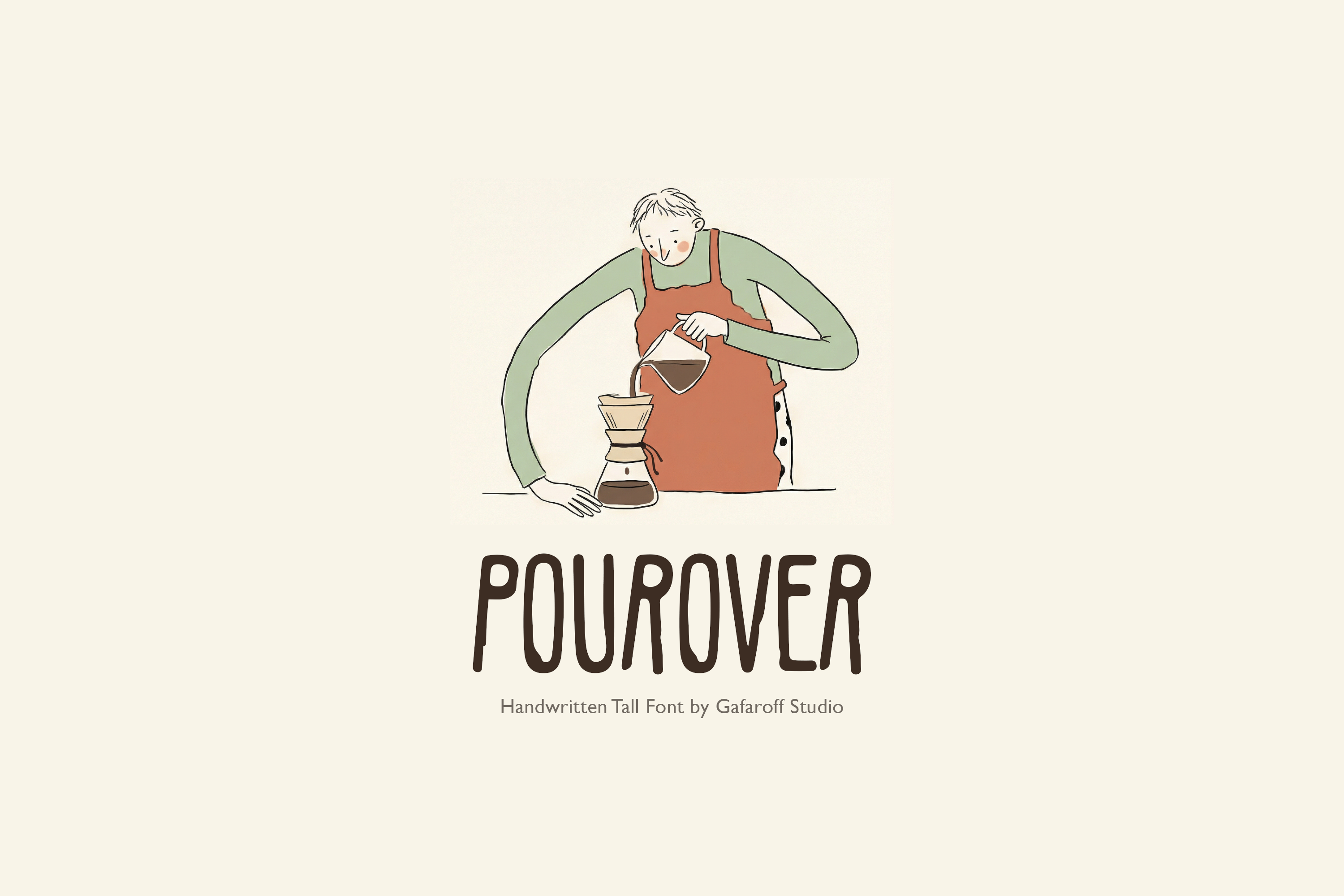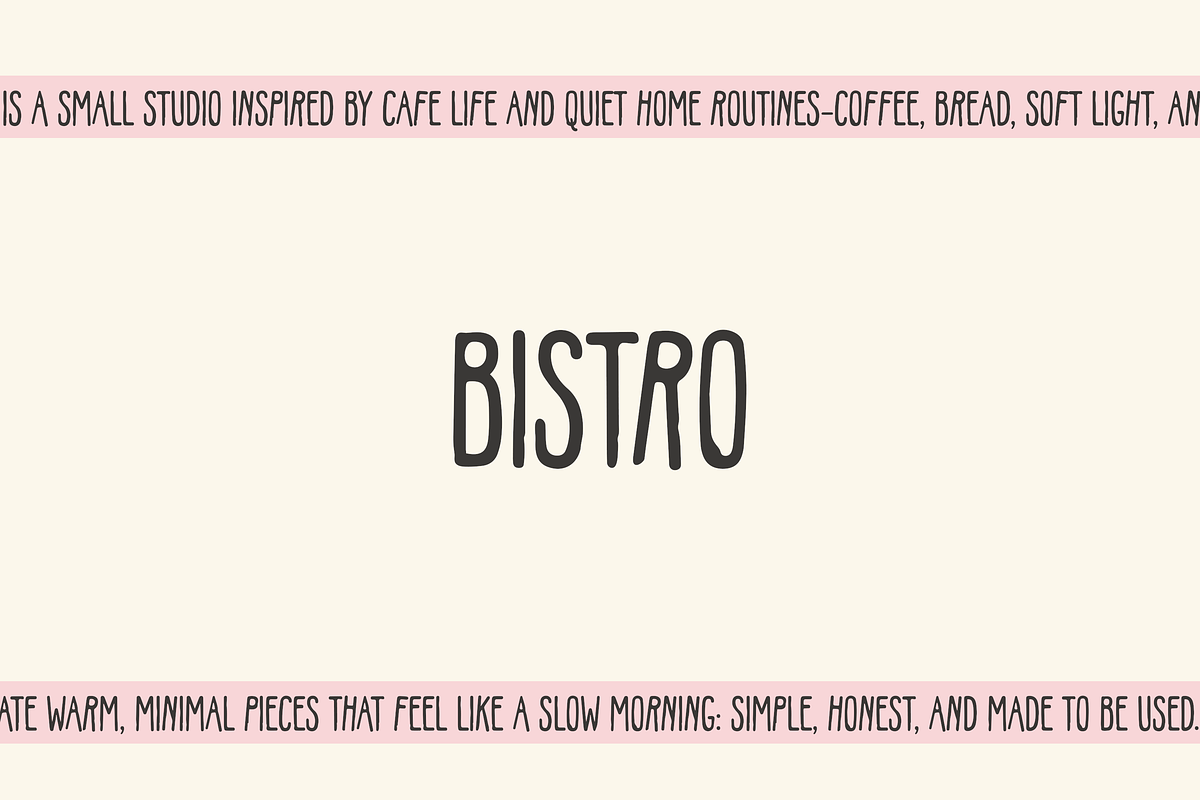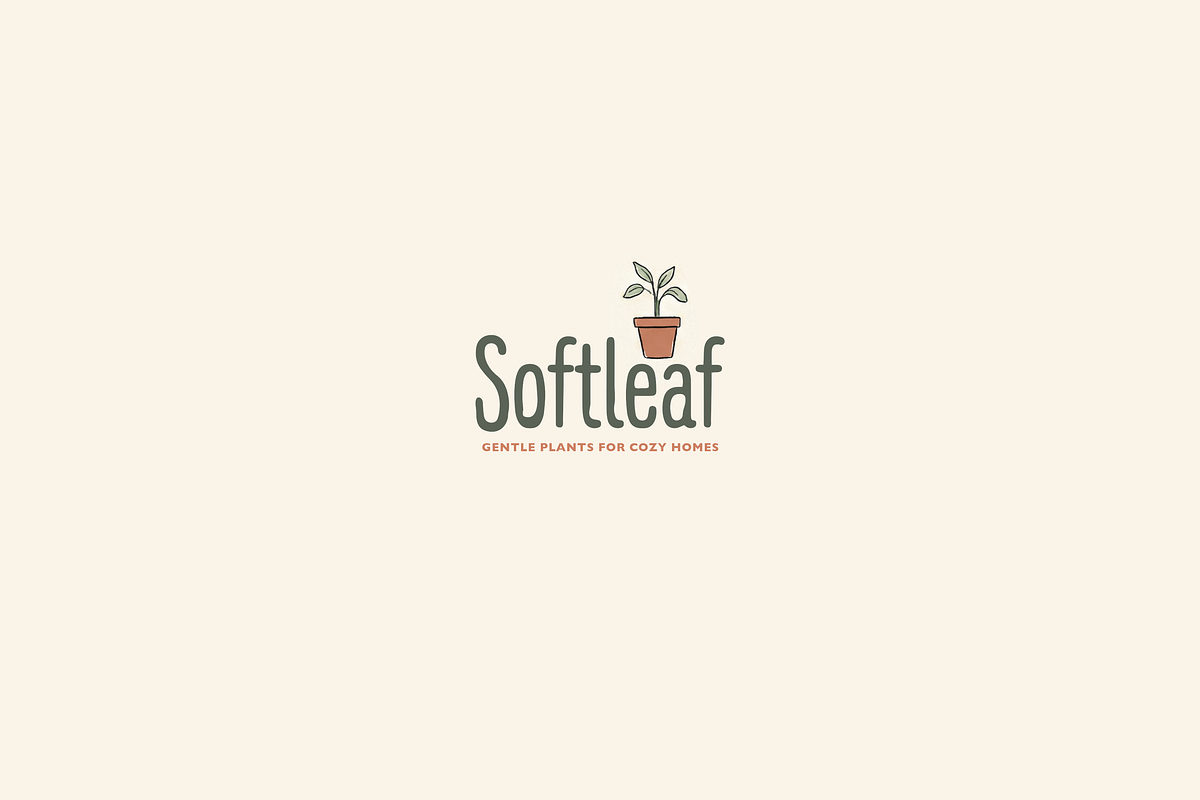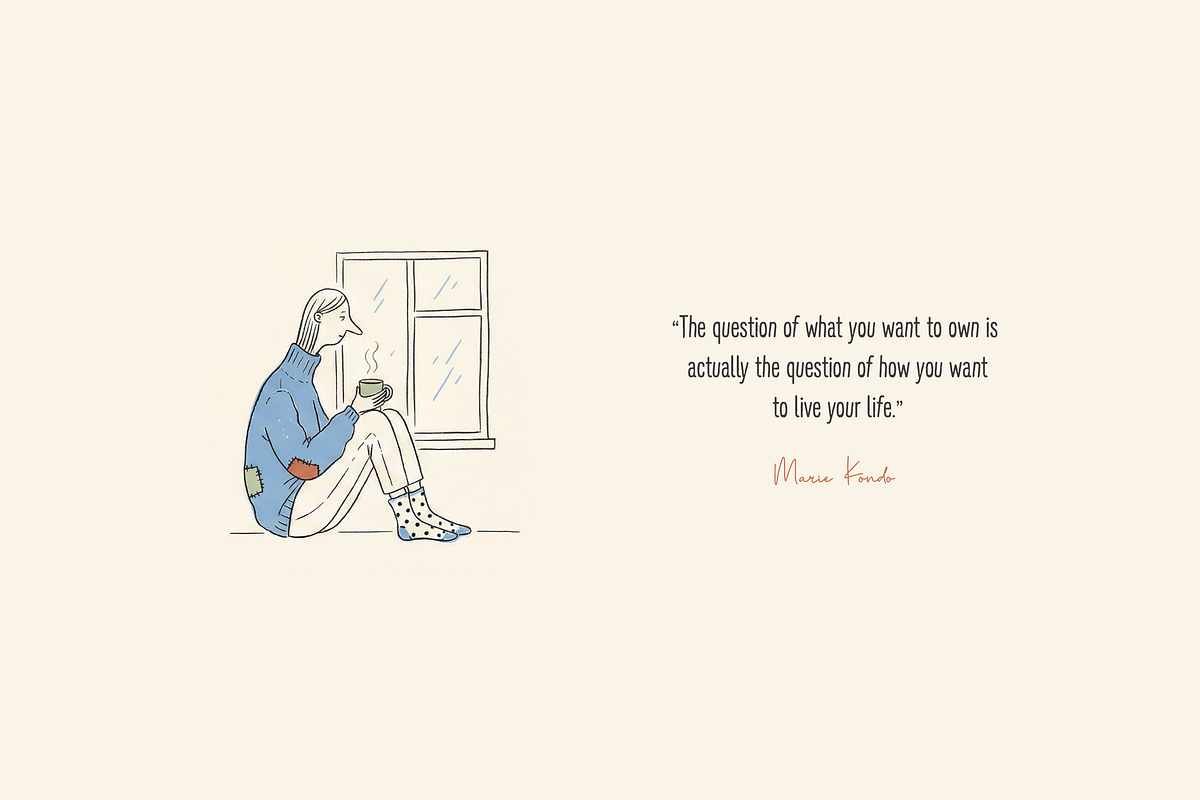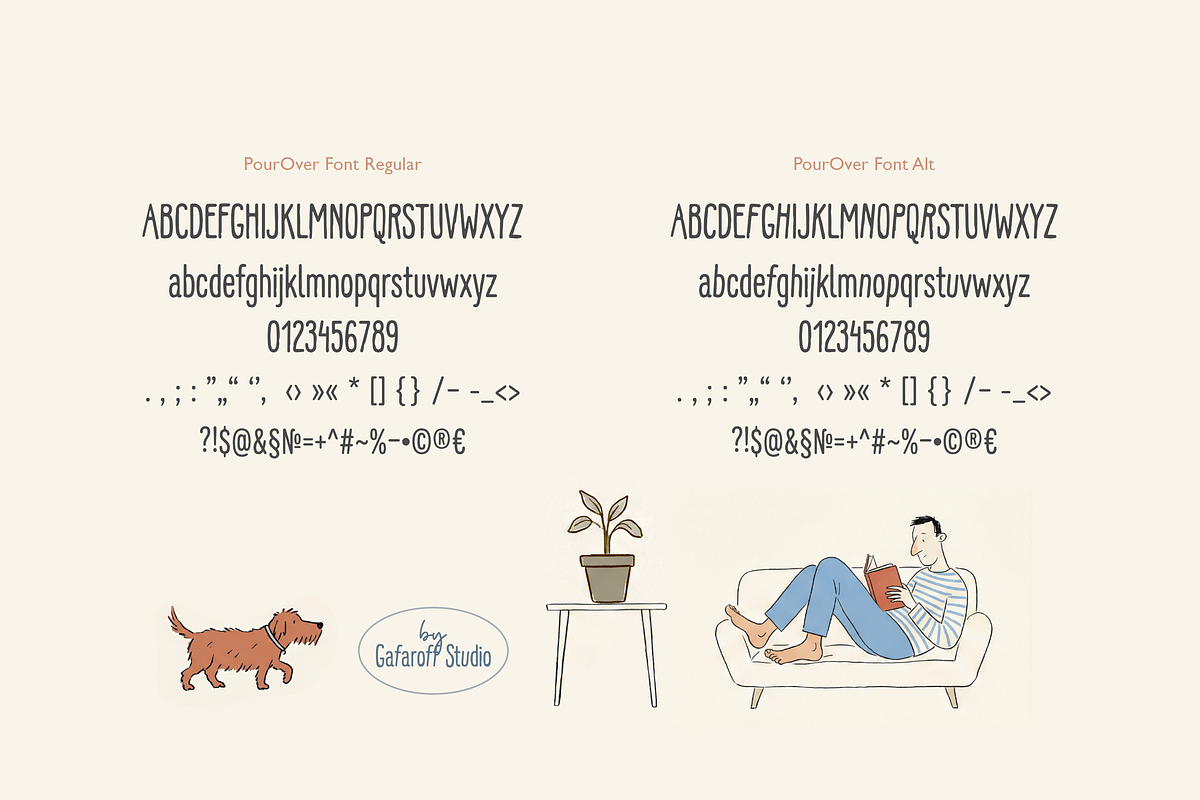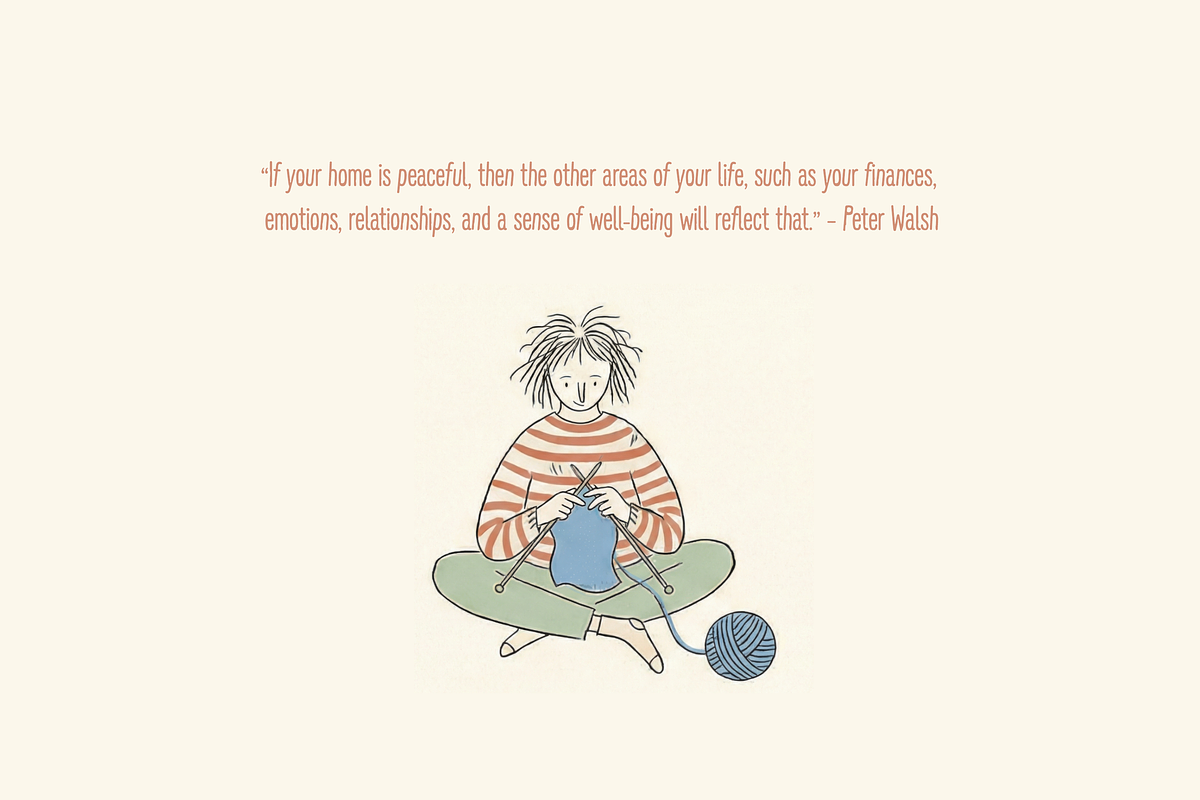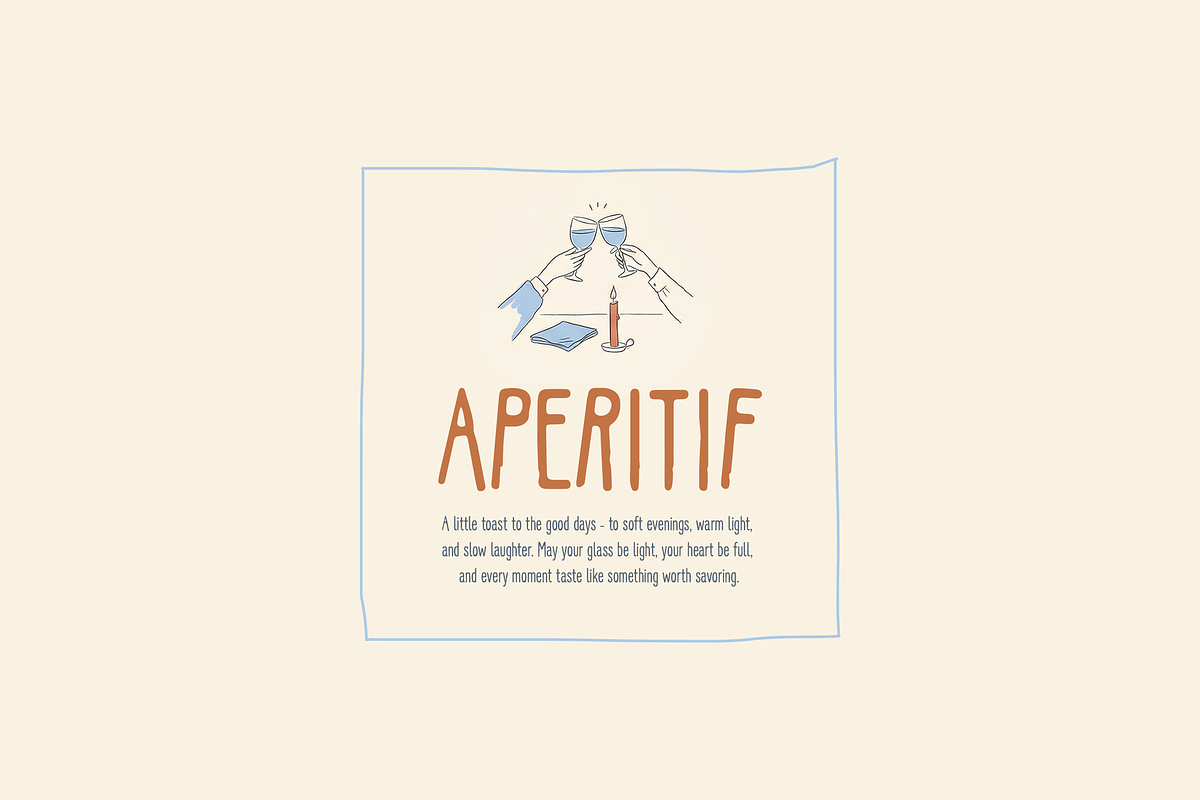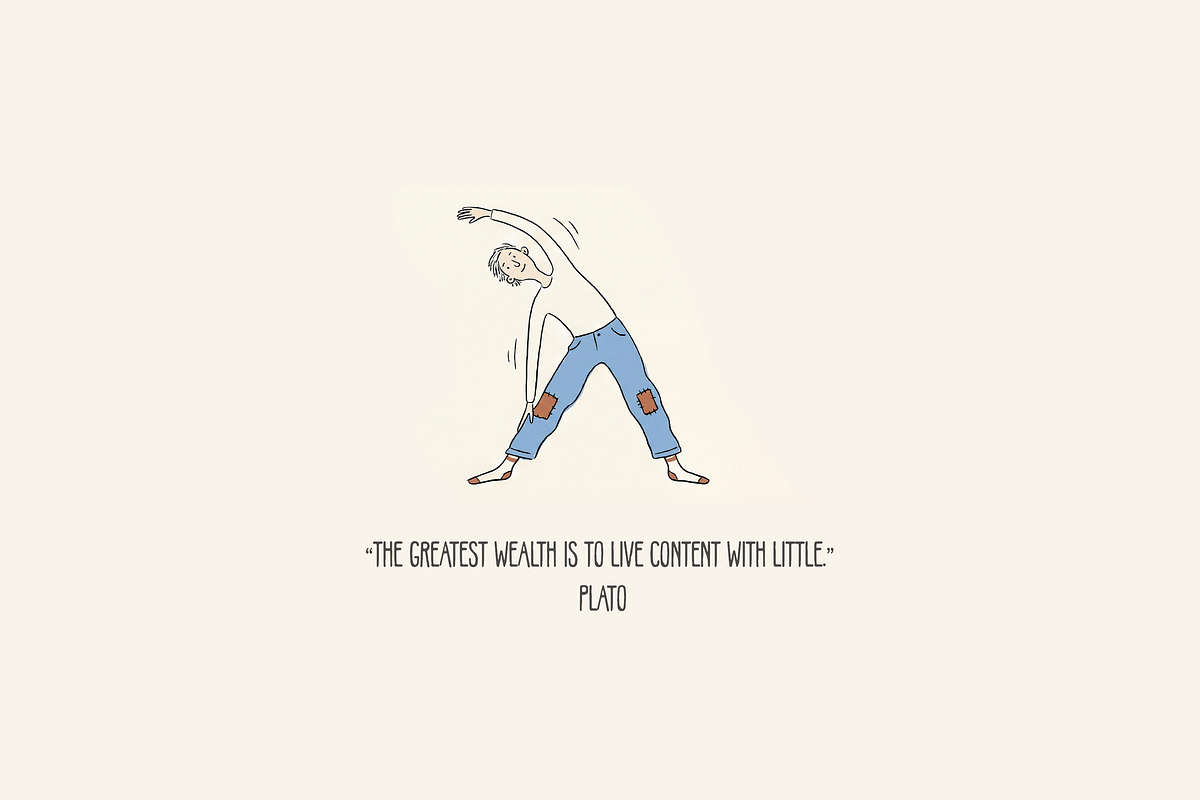
Pourover | Tall Handwritten Font
Pourover is a tall, friendly handwritten display font with a warm retro feel - perfect for coffee shop branding, menus, posters, packaging, quotes, and modern cozy designs. Clean, simple letterforms with a handmade vibe make it easy to read while still feeling unique.